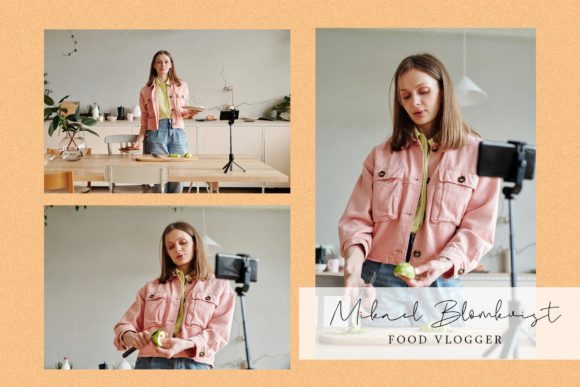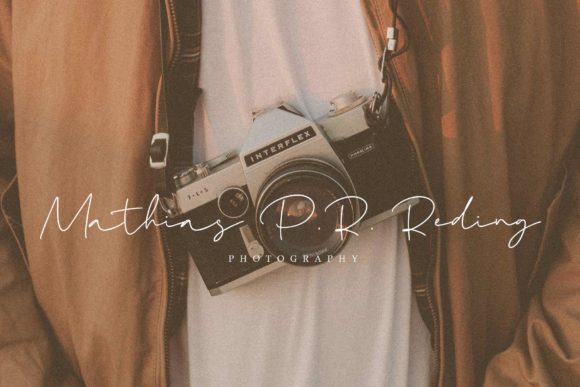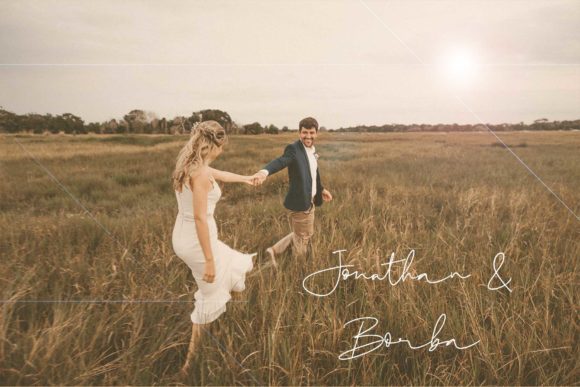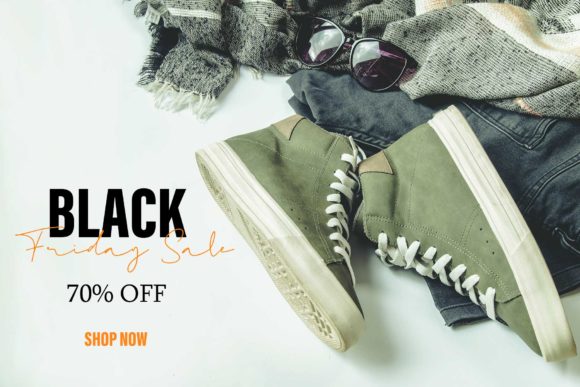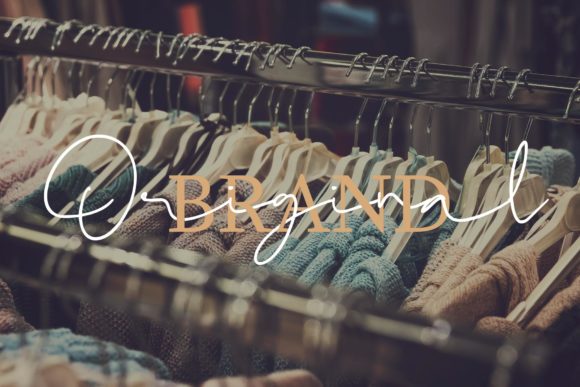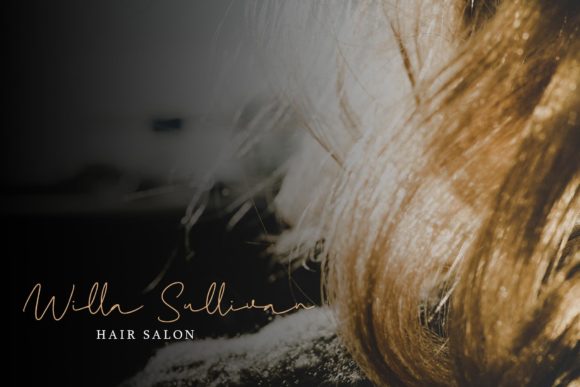
Introduction to Rose Skinner Font
Have you ever been working on a creative project, pouring your heart and soul into every detail, only to feel like something is missing? You’ve got the perfect color palette, the ideal imagery, and the perfect message, but the typography just isn’t quite right. That’s where the Rose Skinner Font comes in – a beautiful script font that adds a touch of elegance and sophistication to any design.
This stunning font is inspired by the natural flow of a signature, making it perfect for adding a personal touch to your next design or craft. Whether you’re a seasoned designer or just starting out, the Rose Skinner Font is an invaluable resource that will elevate your work to the next level.
Key Features of Rose Skinner Font
- High-quality design resource ideal for creative projects, featuring elegant and sophisticated typography.
- Unique characteristic: This font features a vintage-inspired aesthetic with a modern twist, making it perfect for projects requiring a touch of nostalgia and sophistication.
- Perfect for designers and artists seeking a high-quality, free design resource for their creative projects, making it an excellent addition to any design library.
Honest Review: Rose Skinner Font
As a designer, I’m always on the lookout for high-quality design resources to elevate my creative projects. The Rose Skinner Font is one such resource that caught my attention recently. In this review, I’ll share my honest thoughts on what works well and what doesn’t.
- ✨ Unique and elegant design style that’s perfect for elegant and sophisticated designs.
- ✨ High-quality font that’s suitable for various creative projects, including wedding invitations, branding materials, and more.
- ⚠️ Limited character set, which may not be ideal for longer text-based designs.
- ⚠️ May not be suitable for bold or condensed typography, as it’s designed for elegant and refined layouts.
Overall, I’m impressed with the Rose Skinner Font. Its unique design style and high-quality font make it an excellent addition to any designer’s toolkit. While it has some limitations, it’s a great resource for creative projects that require a touch of elegance and sophistication.
Rose Skinner Font
Tips for Getting the Most Out of Rose Skinner Font
Use the Rose Skinner Font in combination with other design resources, such as graphics and illustrations, to create a high-quality design. Experiment with different font sizes, colors, and styles to find the perfect combination for your creative project. You can also use the font in conjunction with a transparent background to create a visually appealing design.
Common Use Cases for Rose Skinner Font
The Rose Skinner Font is a versatile design resource that can be used in a variety of creative projects, including logos, business cards, and marketing materials. It’s also a great option for designers who need a high-quality font with a transparent background.